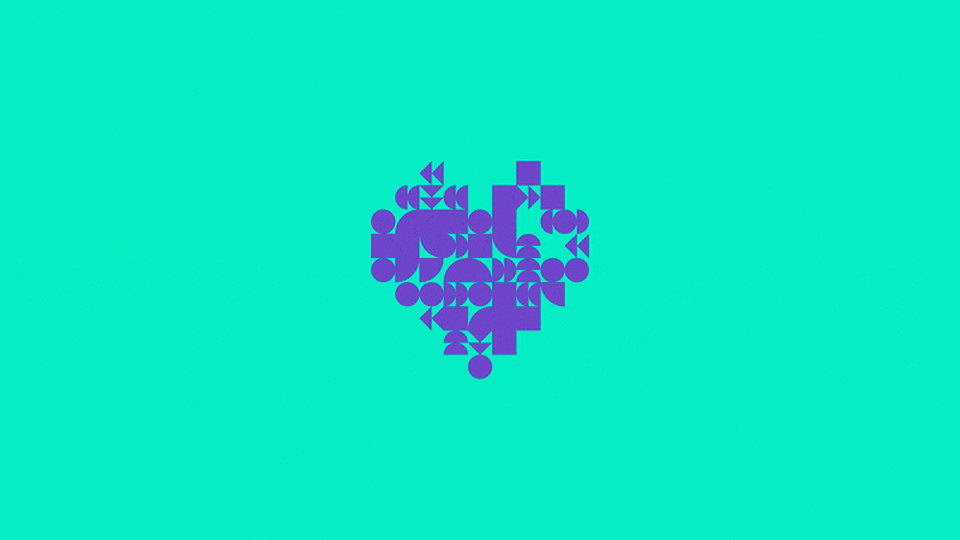
Liberta Font Family › Fontesk – Download Grátis
Download Liberta typeface, parametric opentype font family developed by a team of 6 people in only 6 days, using Type and Code. Liberta is a set of 3 fonts vary depending on the assigned modules by level of complexity.
Designer: Micol Salomone